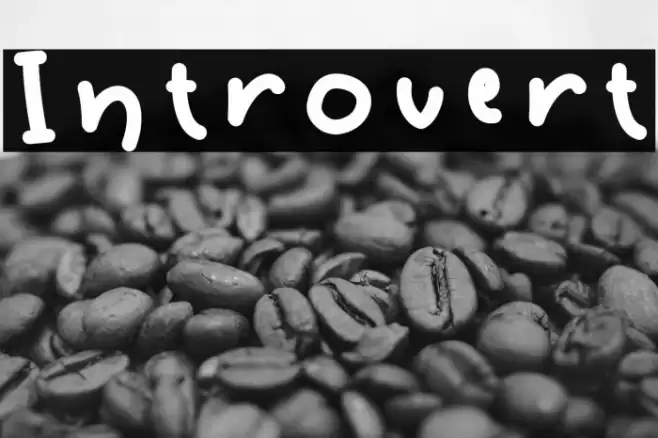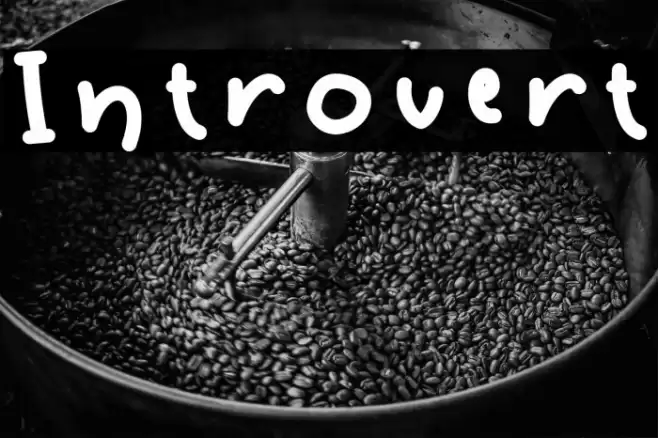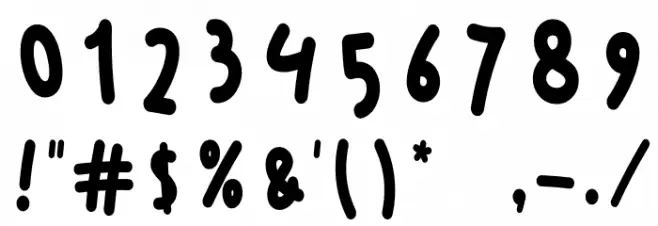
Introvert Font
Introvert Description
This font features a playful and informal handwritten style, characterized by its rounded and slightly irregular letterforms. The strokes are bold and consistent, giving it a friendly and approachable appearance. The uppercase and lowercase letters maintain a uniform height, contributing to its casual aesthetic. Numbers and special characters are designed with the same playful touch, ensuring cohesion across all elements. This font is ideal for projects that require a personal and human touch, such as greeting cards, children's books, or casual branding.
A playful, handwritten font with bold, rounded strokes and a casual style from Regular fonts.
- Proposed Projects: Greeting cards, children's books, casual branding, personal notes, and informal invitations.
- Overall Style: Casual, Playful
- Use Case: Logos, Headlines, Informal Text